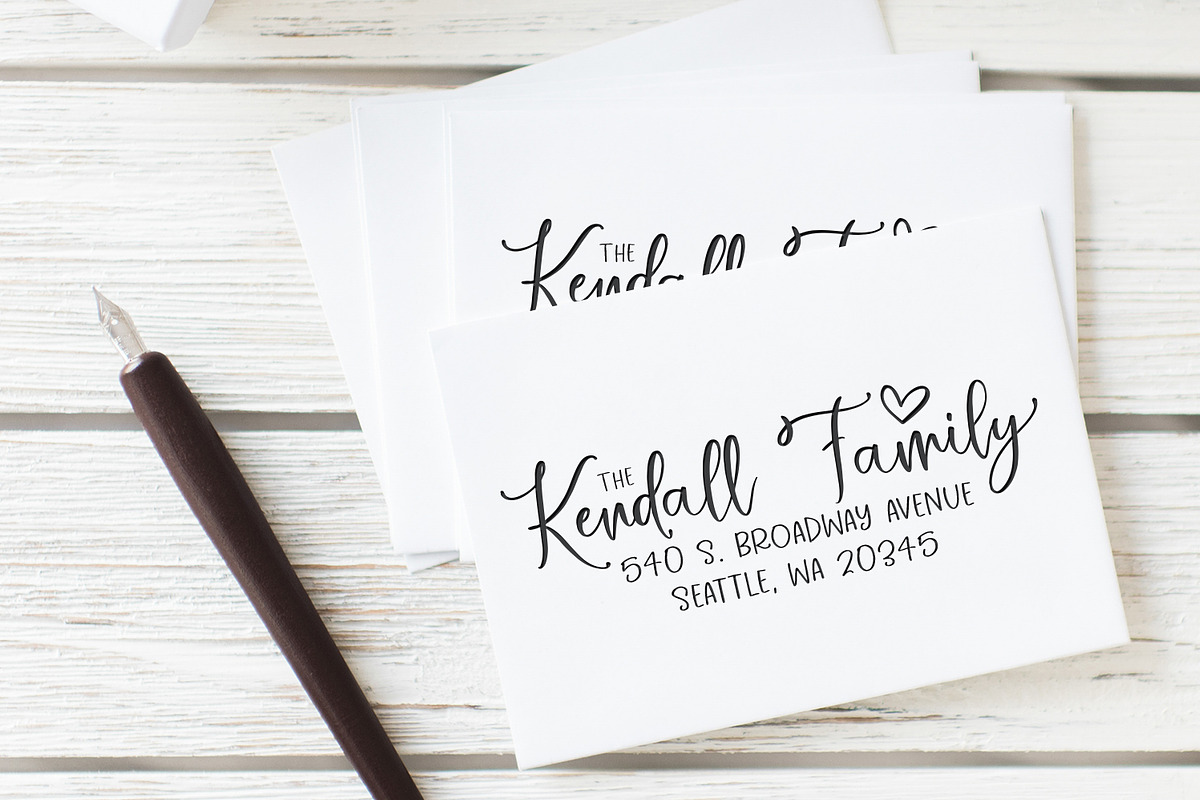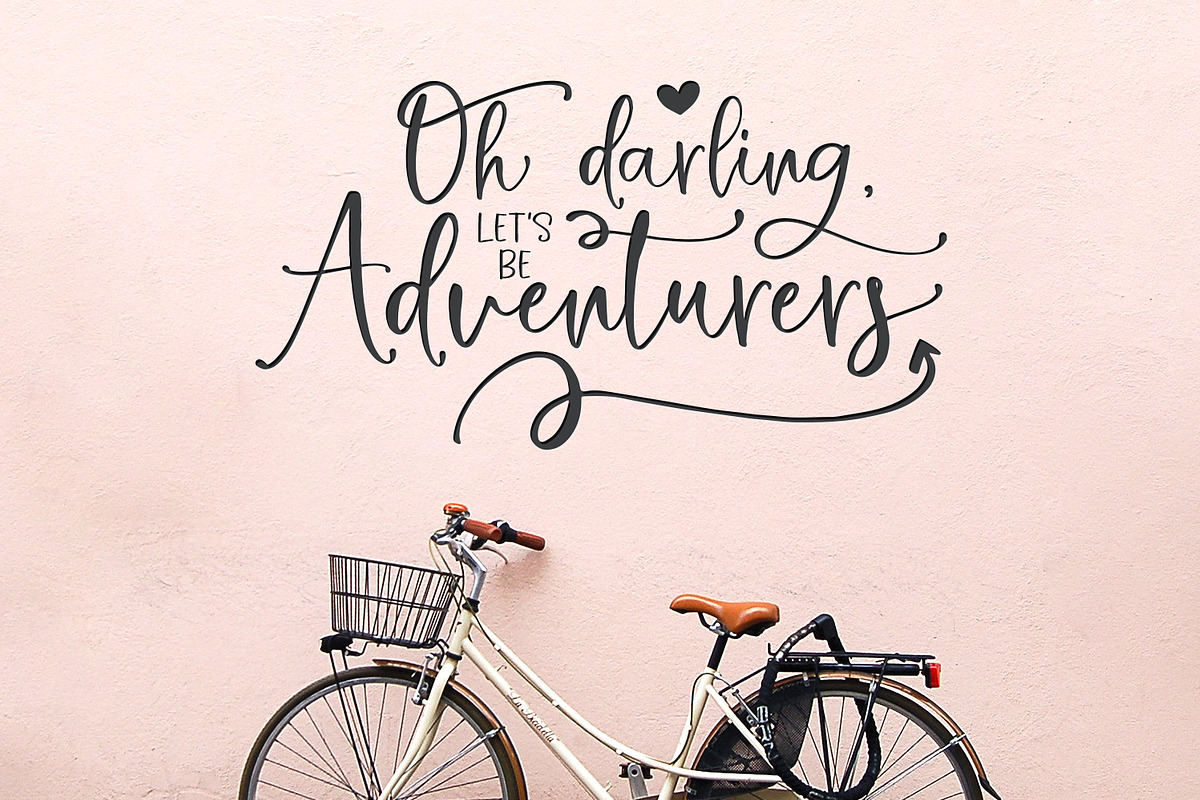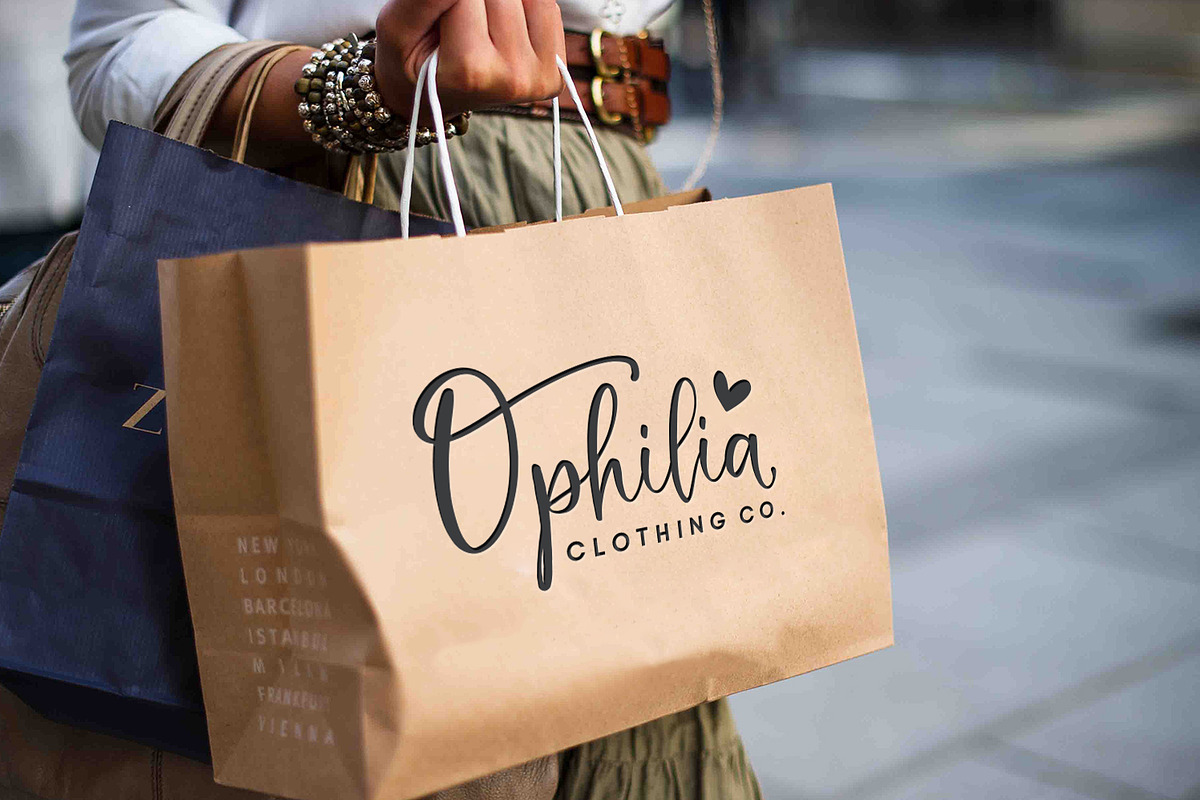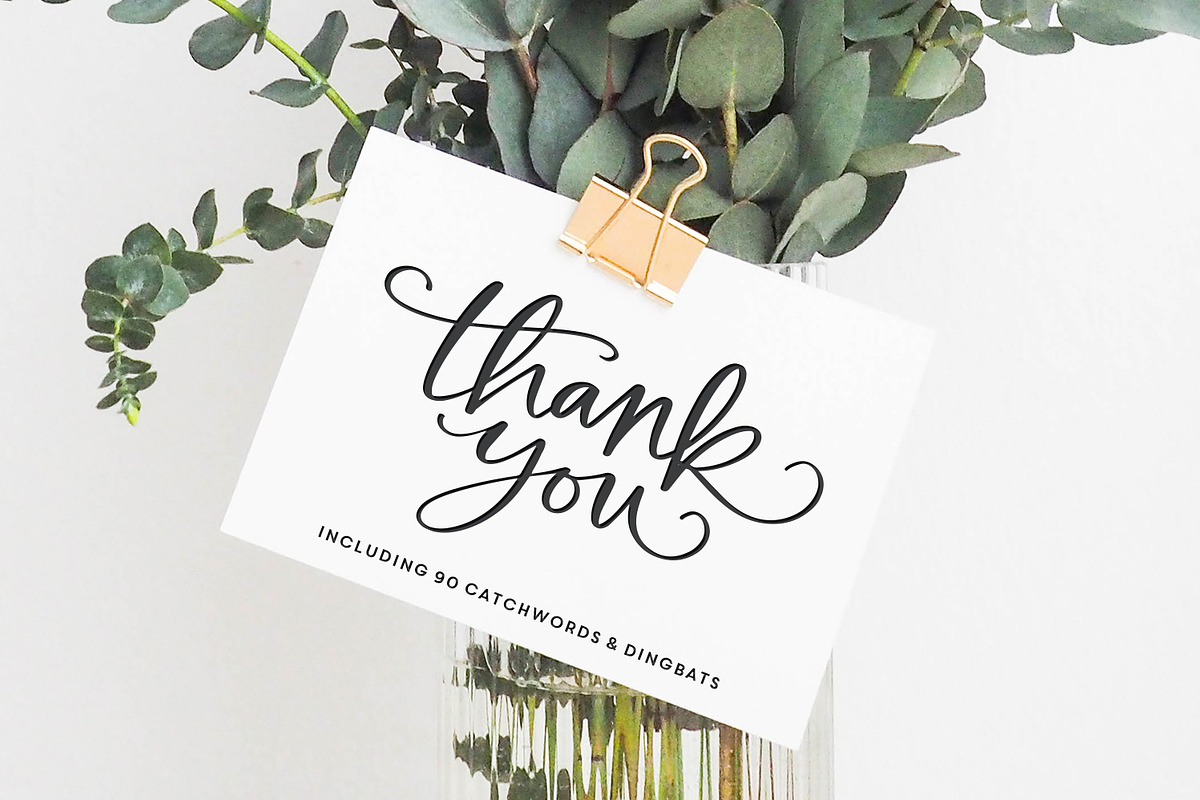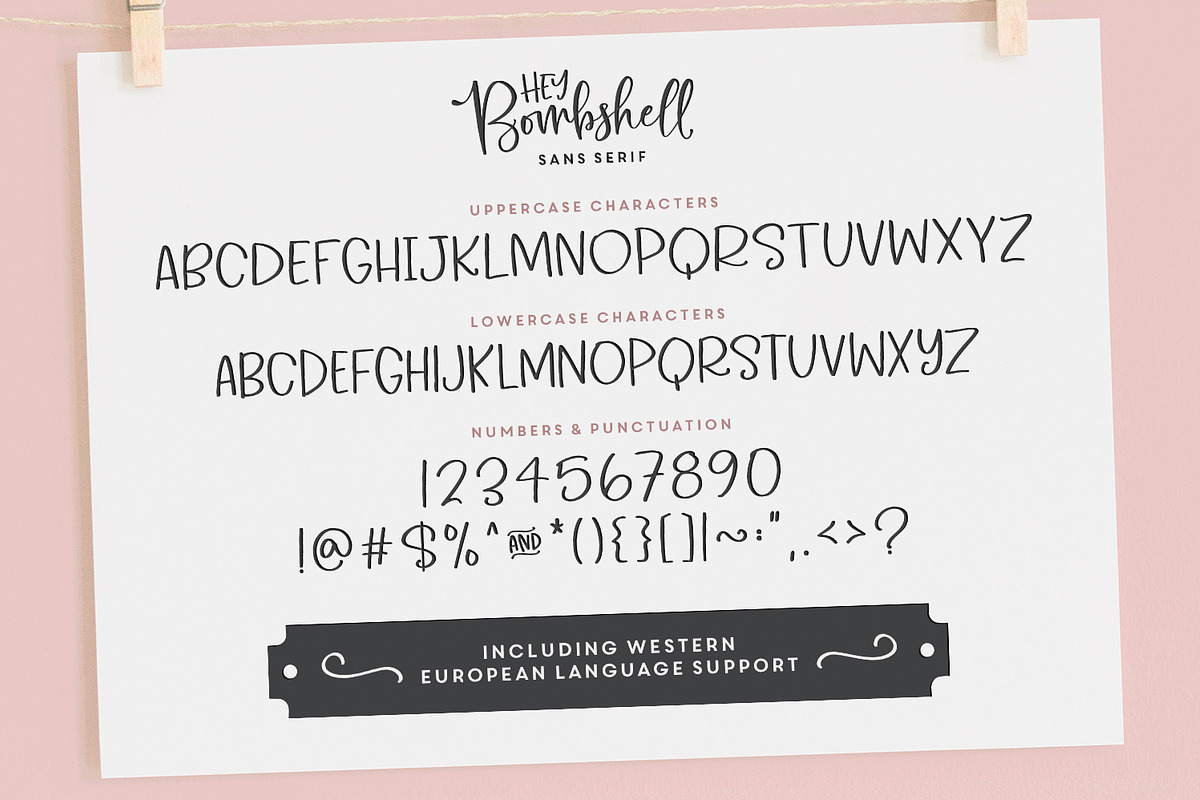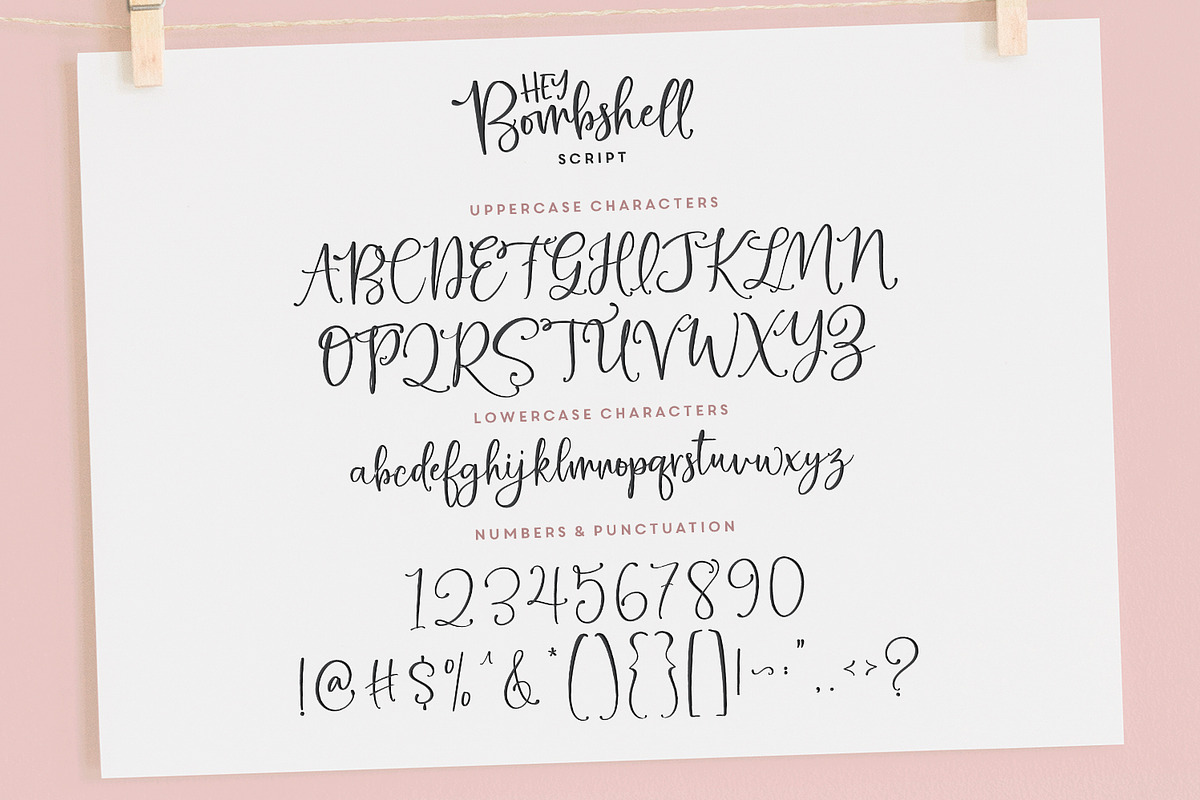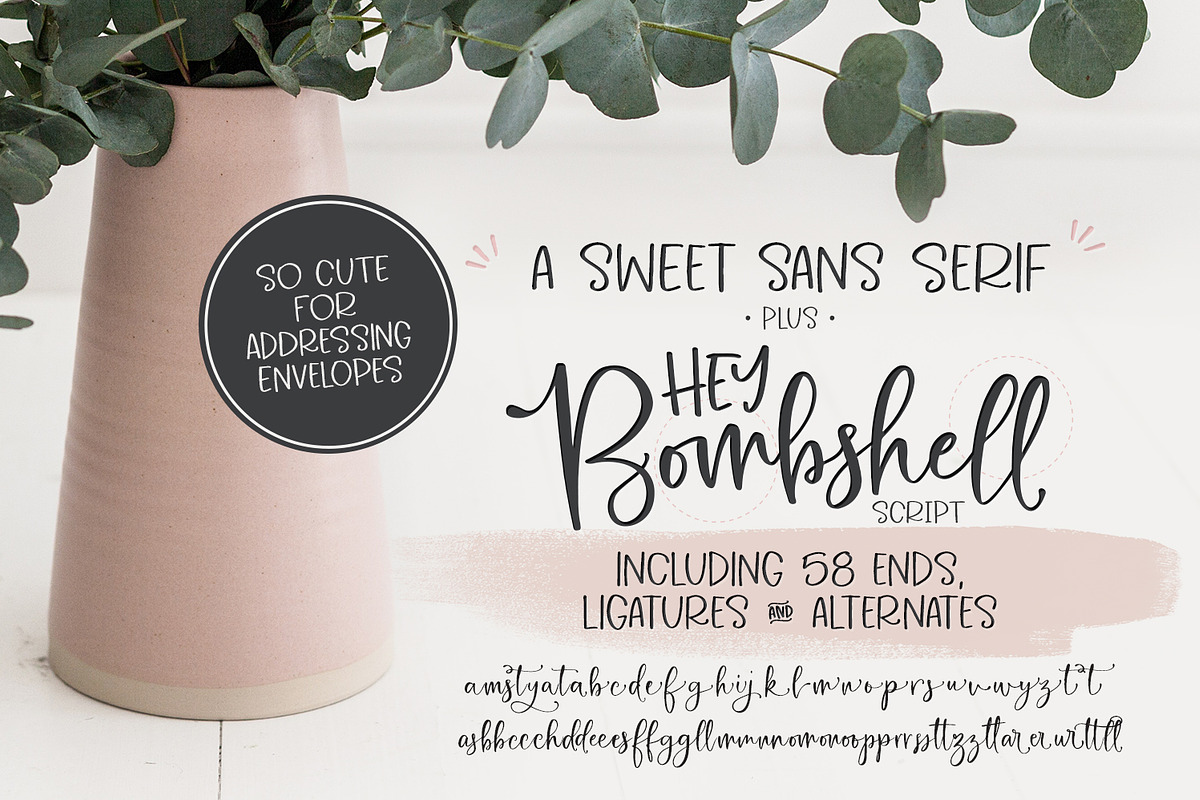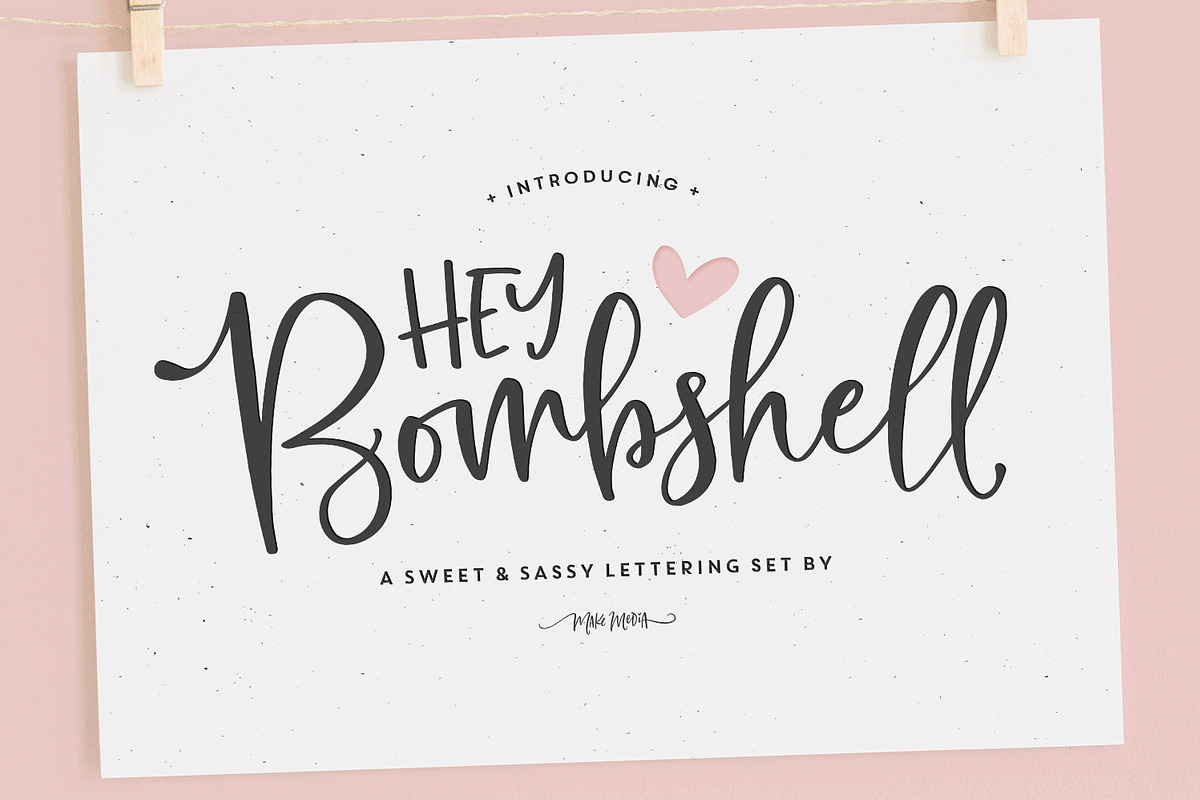
Hey Bombshell Font Family
Are you looking for a fun, bouncy lettering set for envelopes, logos, typography, branding and greeting cards?! Well look no further! Created with stationary in mind, Hey Bombshell, a sweet, yet sassy font family, LOADED with extras to make your work stand out! 🙌🏼💕😋
Hey Bombshell Script (OTF) - A fun, bouncy script, with almost 60 alternates & decorative end characters. Plus Western European Language Support and OpenType ligatures.
Hey Bombshell Sans Serif (OTF) - An all-caps sans, designed with perfect pairing in mind. This darling compliment to Hey Bombshell Script, boasts unique upper and lowercase lettering. Mix the uppers and lowers for an authentic handwritten look!
Hey Bombshell Dingbats (OTF) - These might be my favorite part of the whole set! This 90-character font file includes catchwords, greetings, banners, hearts, salutations, ampersands and swirls. Uses these adorable dingbats to style envelopes, create merch, adorn typography & more! ❤️
Fonts Include the following Language Support:AÀÁÂÃÄÅCÇDÐEÈÉÊËIÌÍÎÏNÑOØÒÓÔÕÖUÙÜÚÛWẂŴẄẀYÝŸỲŸÆŒßÞþ